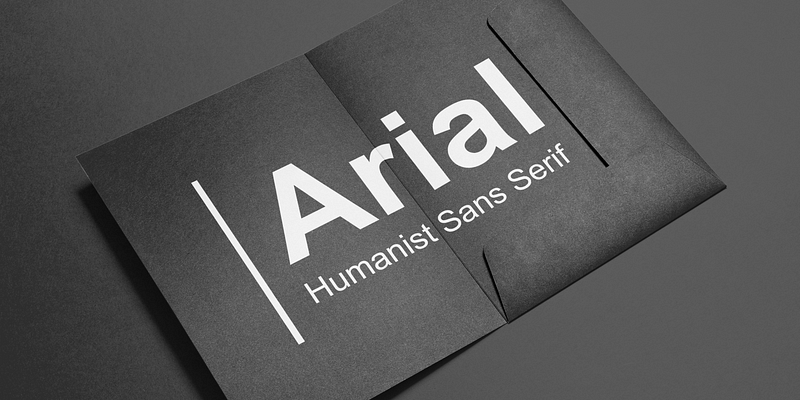
Arial is one of the most widely used designs of the last 30 years. Drawn in 1982 by Robin Nicholas and Patricia Saunders for use in an early IBM® laser printer, Arial has become a staple for textual content. While it is widely believed that Arial’s design was based on Helvetica, it is more accurate to consider Monotype Grotesque as its ancestor.